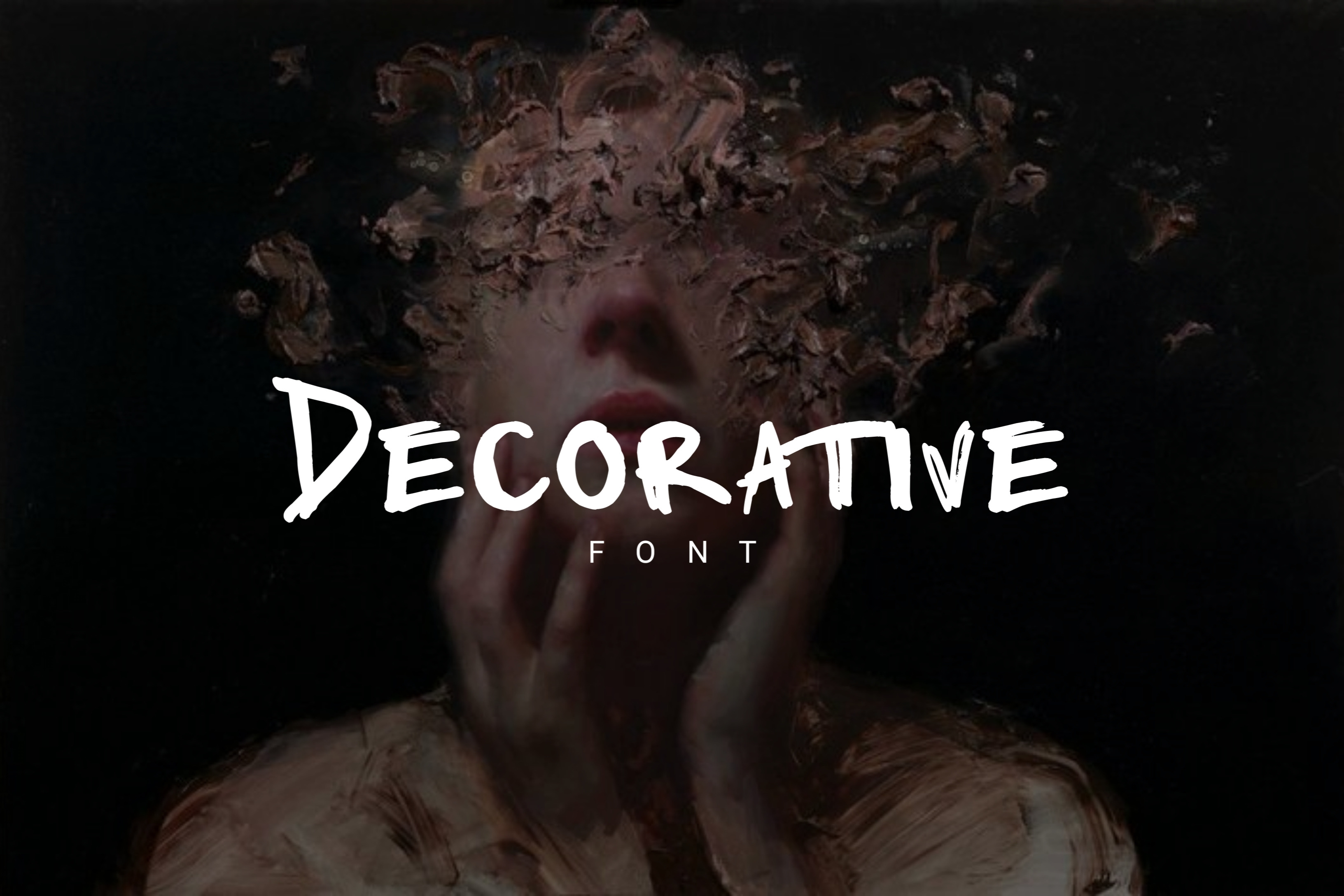
Decorative font
Introducing a simple and decorative font. So perfect for you who needs a typeface for logo designs, magazine, social media, brochure, and many more.